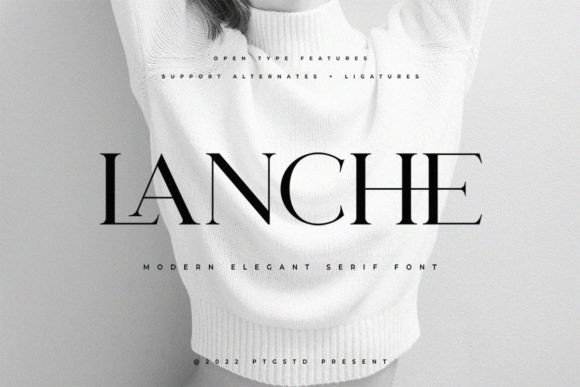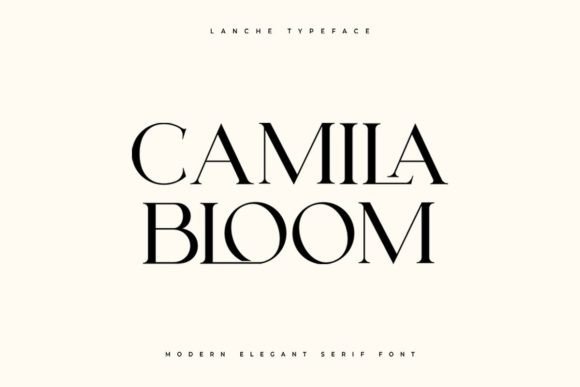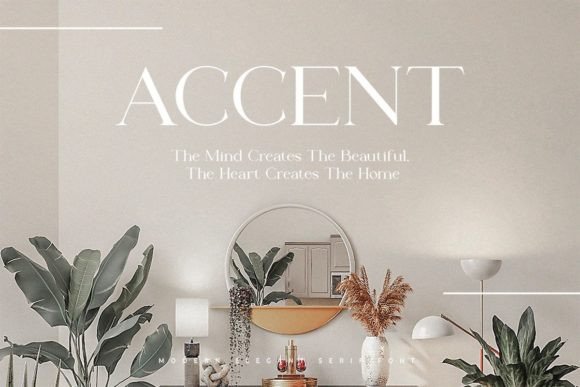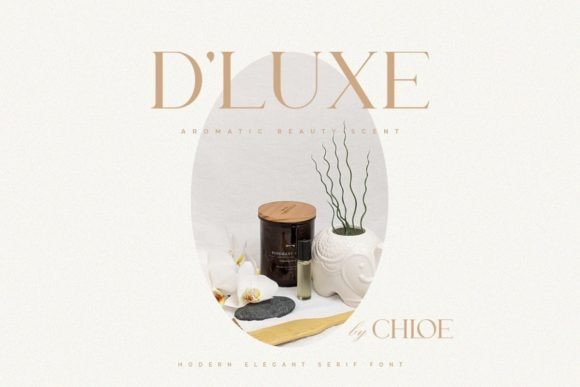
Lanche Font: Modern Serif Typography for Elegant Branding & Logo Design
About the Lanche Font
Experience the unique personality of Lanche Font, a font designed for impact. Lanche is a modern, elegant, and stylish serif font. Add it to your favorite designs and watch how it instantly adds a luxury spark to them.
Lanche’s elegant serifs make it ideal for headlines, logos, and short-form text in branding materials and high-end packaging. Its refined aesthetic lends itself well to projects requiring a touch of sophistication, such as invitations or editorial designs. However, its detailing isn’t suited to body copy or lengthy paragraphs; smaller sizes lose legibility.
Avoid using Lanche in user interfaces or situations demanding high readability in extended text blocks. For optimal impact, pair Lanche with a clean sans-serif like Open Sans or Lato for body text, maintaining a balanced contrast. A geometric sans-serif could add a modern edge, while a playful script font might soften its formality for specific applications.
Lanche projects a sophisticated and modern personality, suitable for brands aiming for an air of luxury and refinement. Its inherent elegance makes it a strong choice where visual impact and high-quality aesthetics are paramount.
Lanche Font Usage Examples
Lanche Font Example